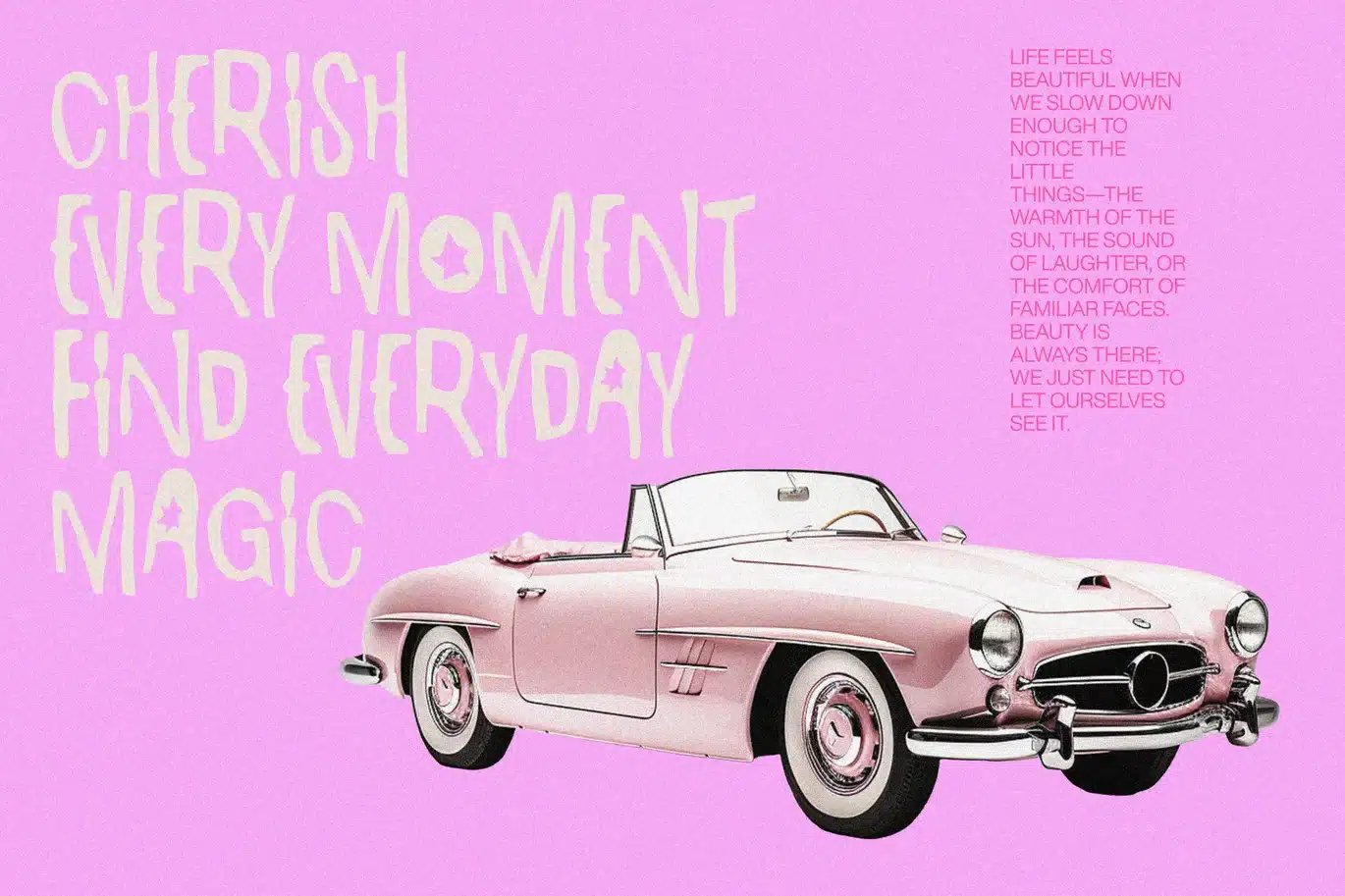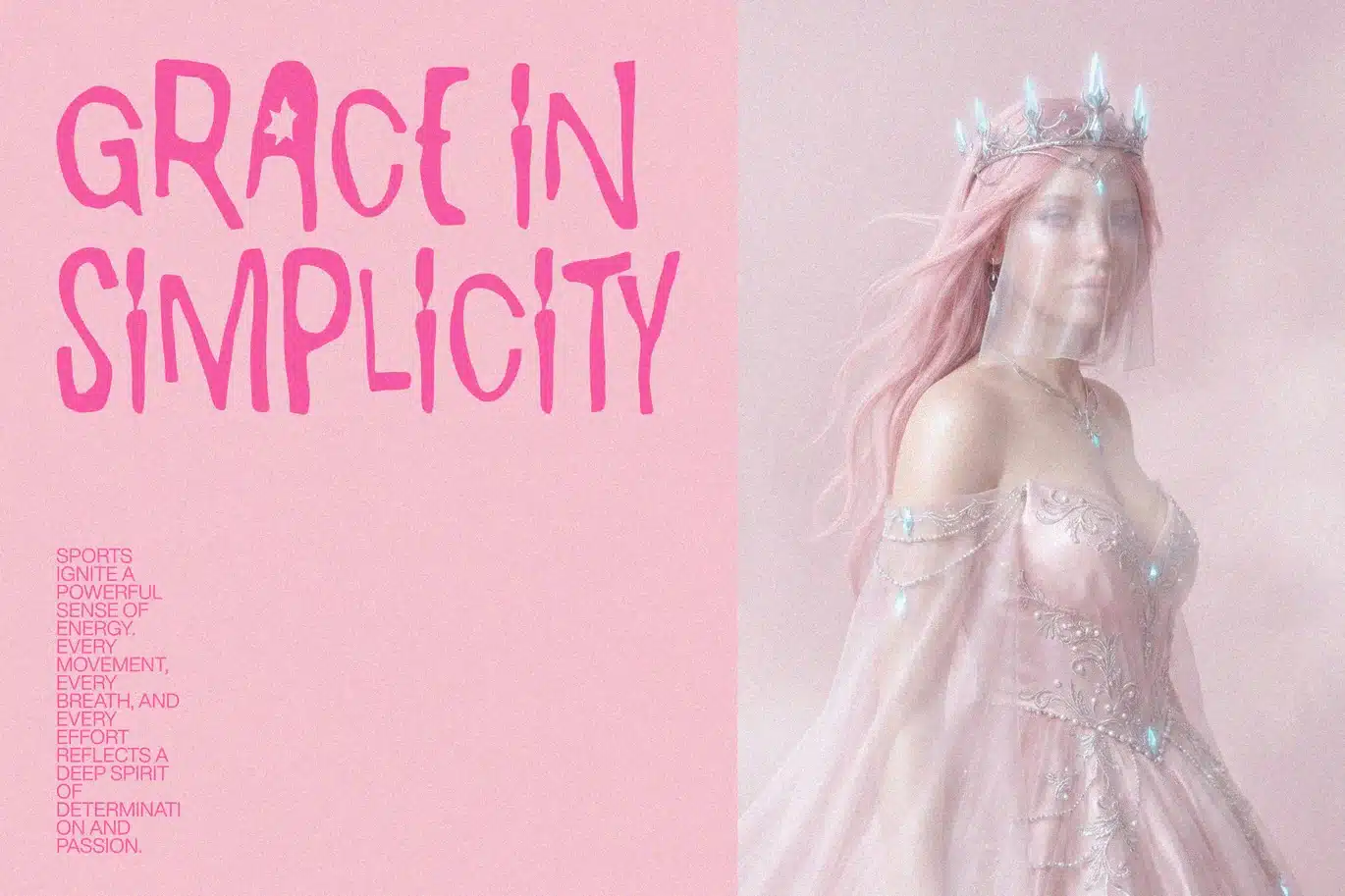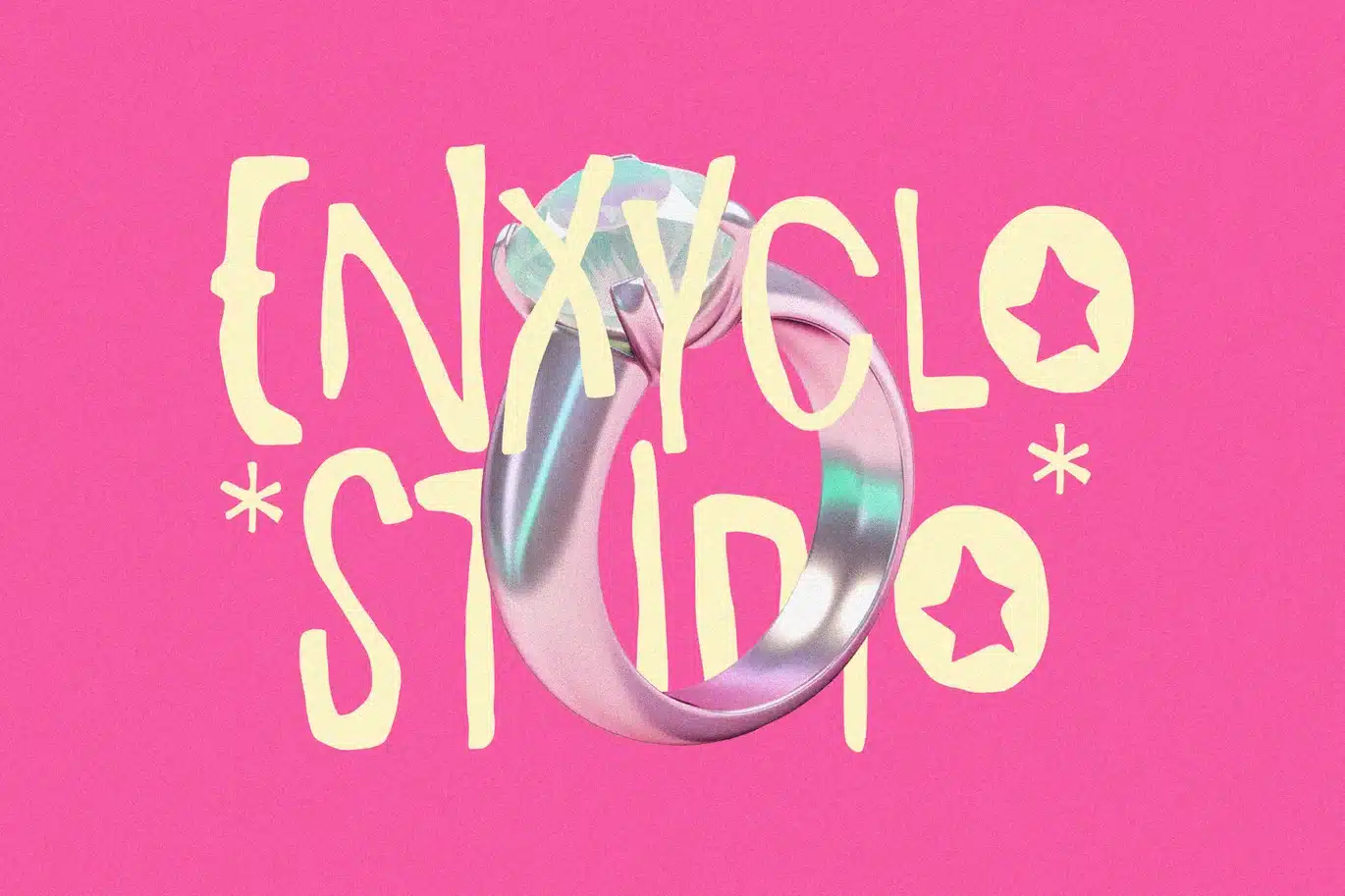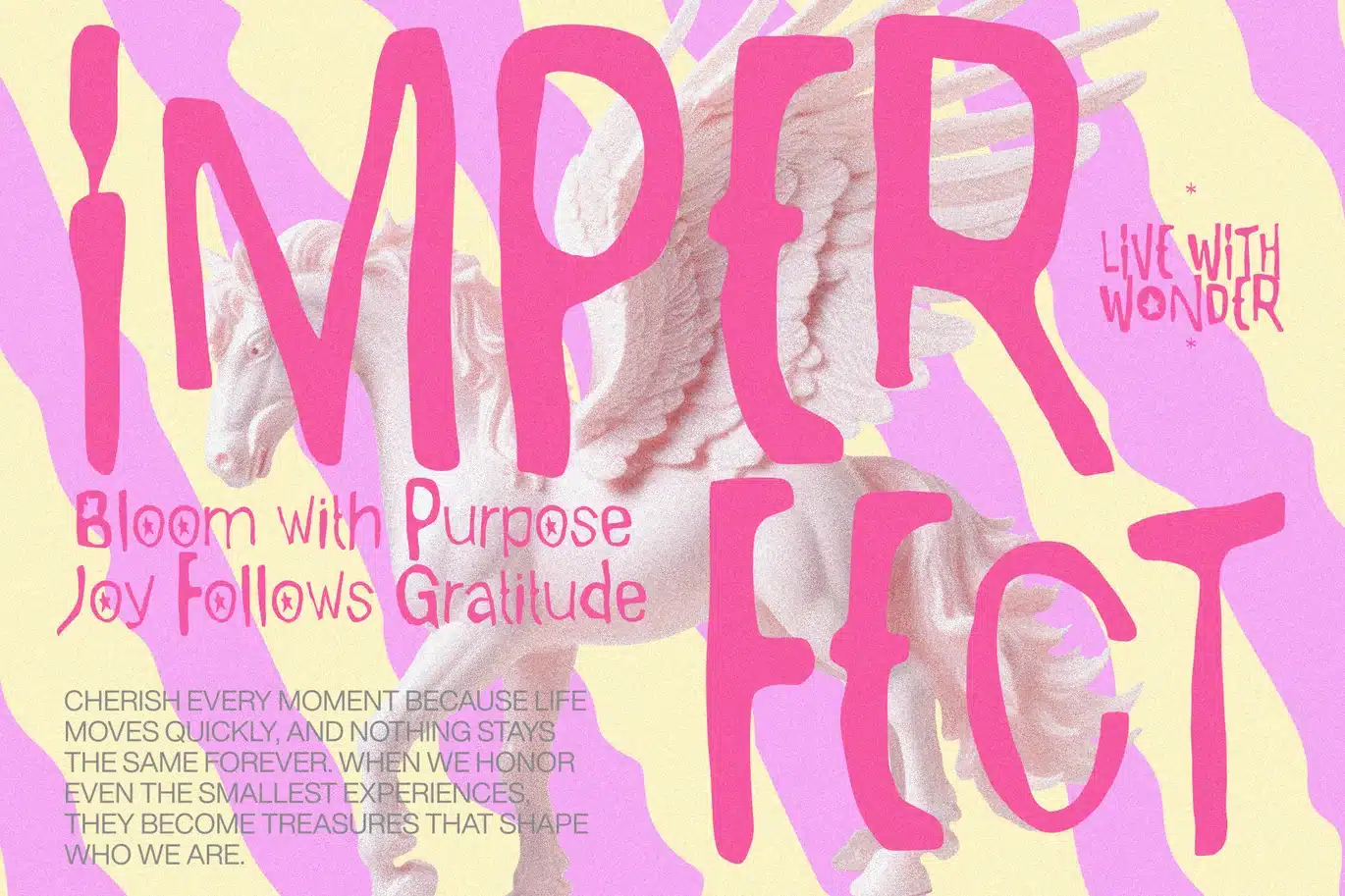
Fimaro — Quirky Whimsical Modern Logo Font
FIMARO is a quirky and whimsical handdrawn font that embraces the beauty of being imperfect, unfinished, and raw. Its playful handwritten character adds a charmingly modern touch while still feeling artistic and expressive. Every stroke carries a natural, unpolished energy—making the font stand out with bold individuality.
Designed to break away from rigid design norms, FIMARO brings a fresh creative vibe to any layout. Its quirky shapes and bold handwritten style make it perfect for modern branding, standout logos, eye-catching posters, or any creative agency project that needs personality and visual storytelling.
Whether used for headlines, title designs, or branding elements, FIMARO helps your message feel more human, spontaneous, and visually engaging.
- Uppercase letters
- Lowercase letters
- Punctuation marks
- Symbol set
- Currency symbols
PERFECT FOR
- Creative branding and logo design
- Whimsical product packaging
- Bold and artistic posters
- Modern editorial and magazine layouts
- Social media content with personality
- Creative agency visuals
- Playful headlines and title designs
- Lifestyle, art, or handmade brand identities